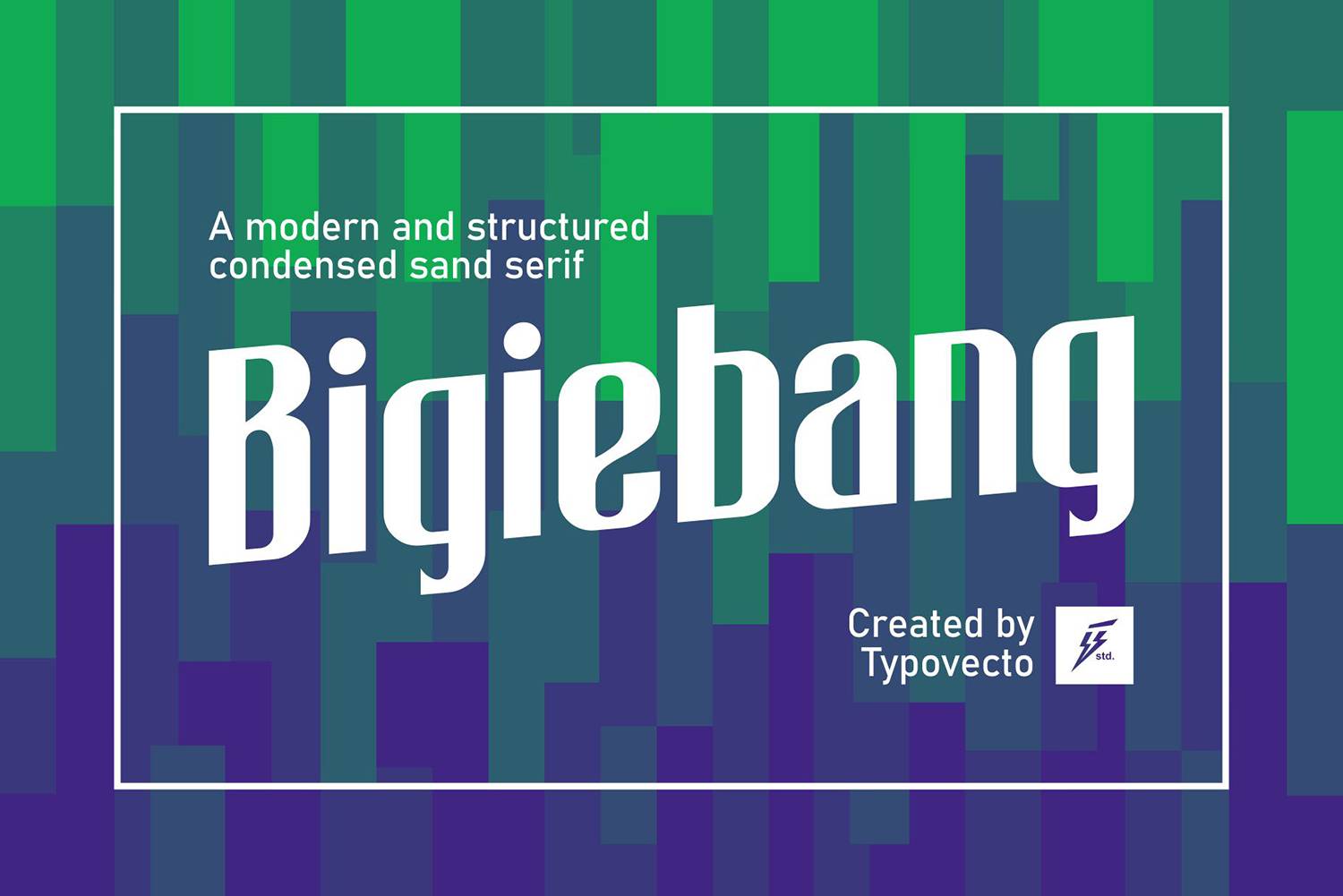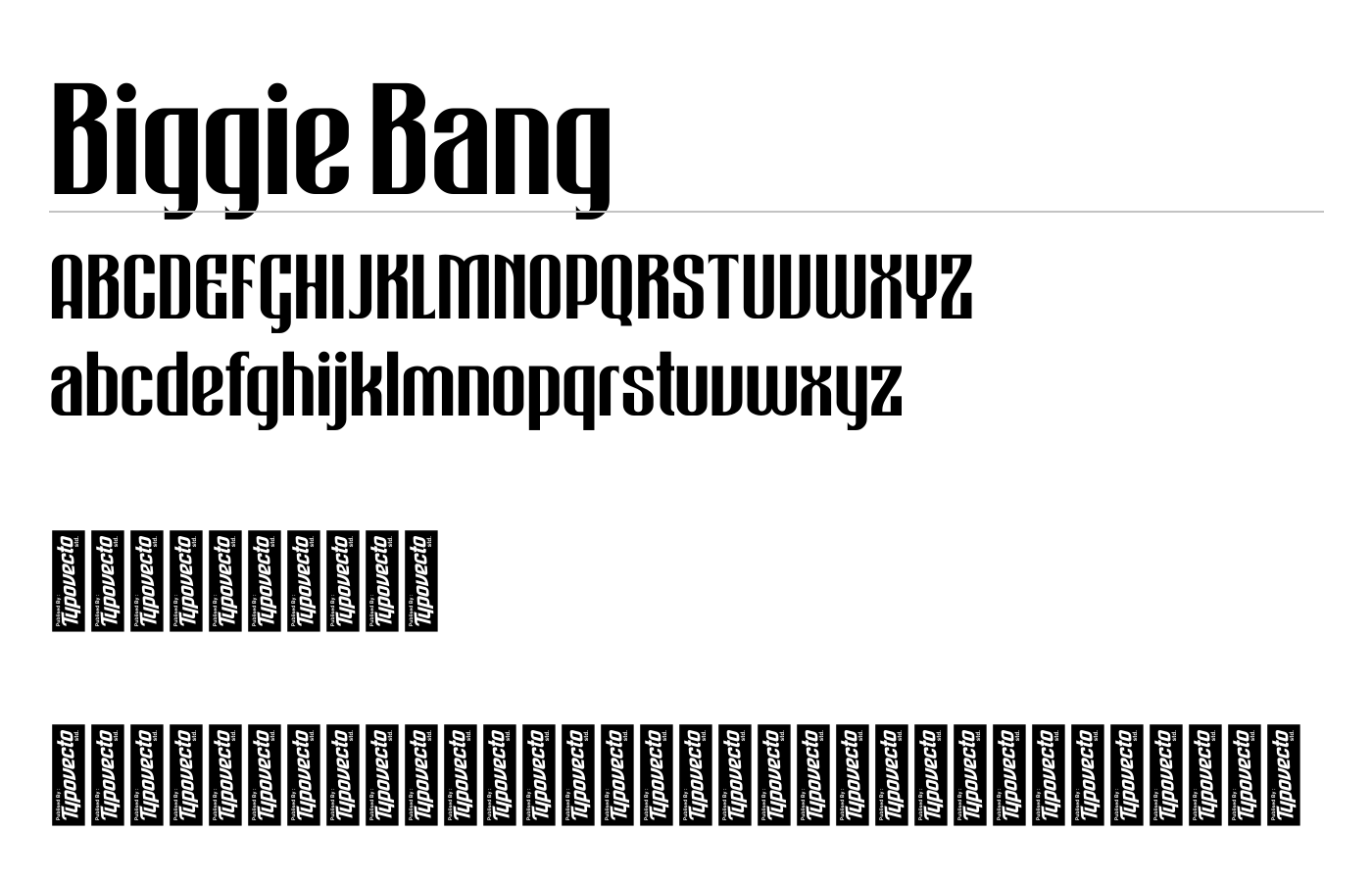
Bigiebang is a bold, condensed sans serif font with a strong vertical emphasis and a high x-height that creates a modern and striking appearance. Its consistent stroke weight and unique letter shapes give it a geometric yet slightly playful feel, making it perfect for headlines, logos, and branding that demand attention with a contemporary edge. This font works especially well for fashion, editorial, and poster designs where impact and readability are key.
Bigiebang Font
About Bigiebang Font